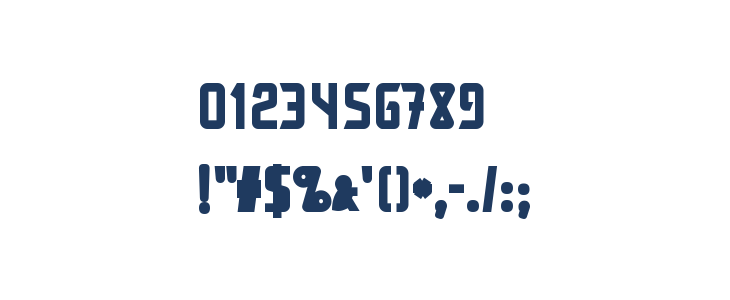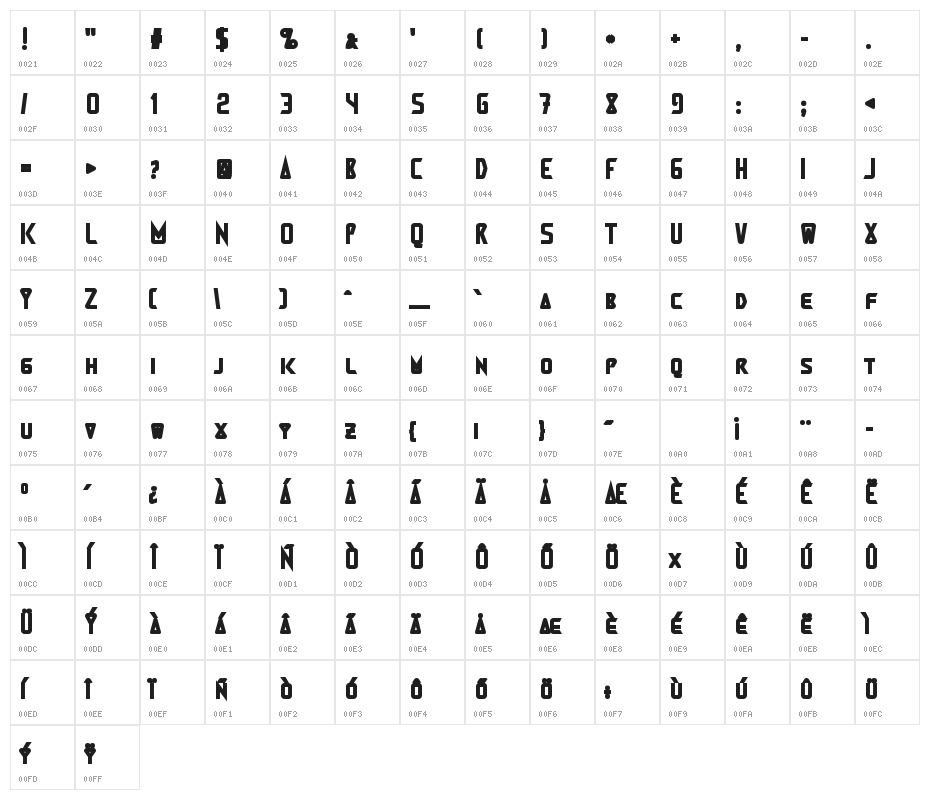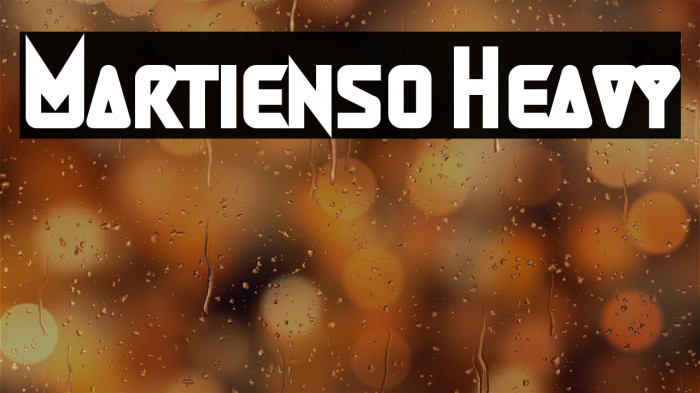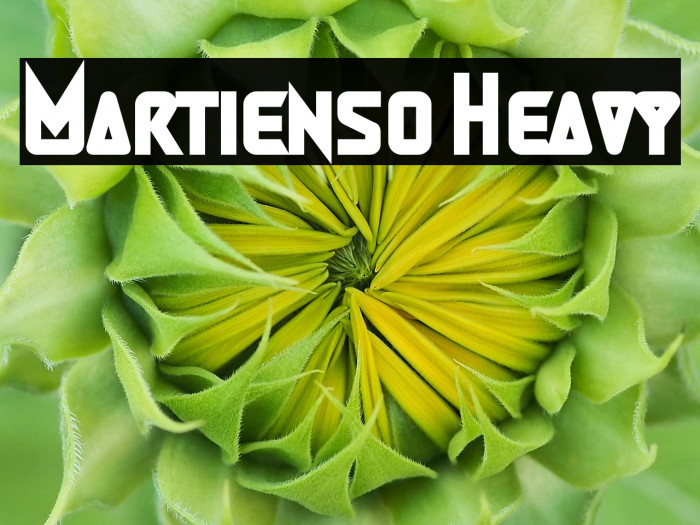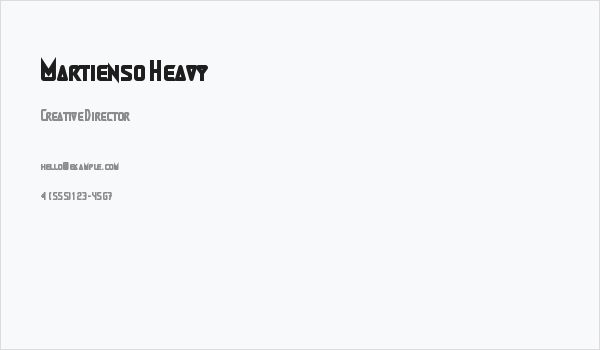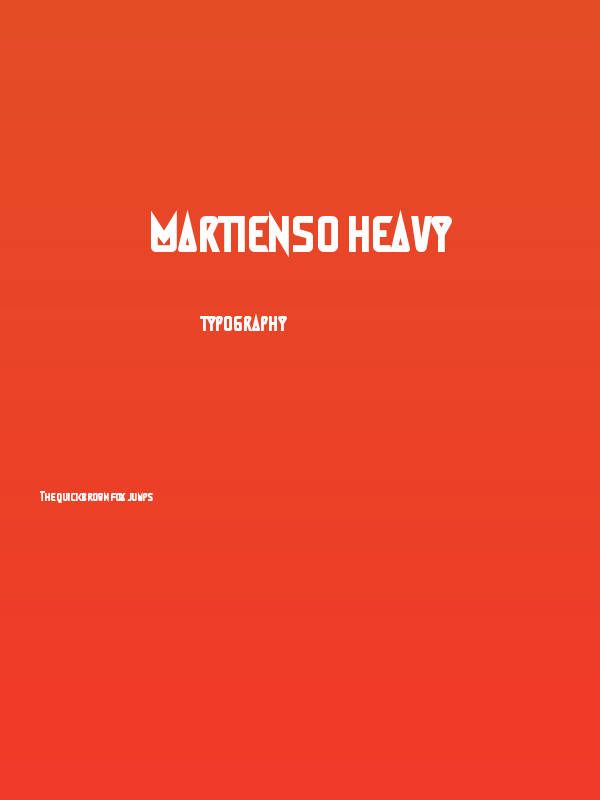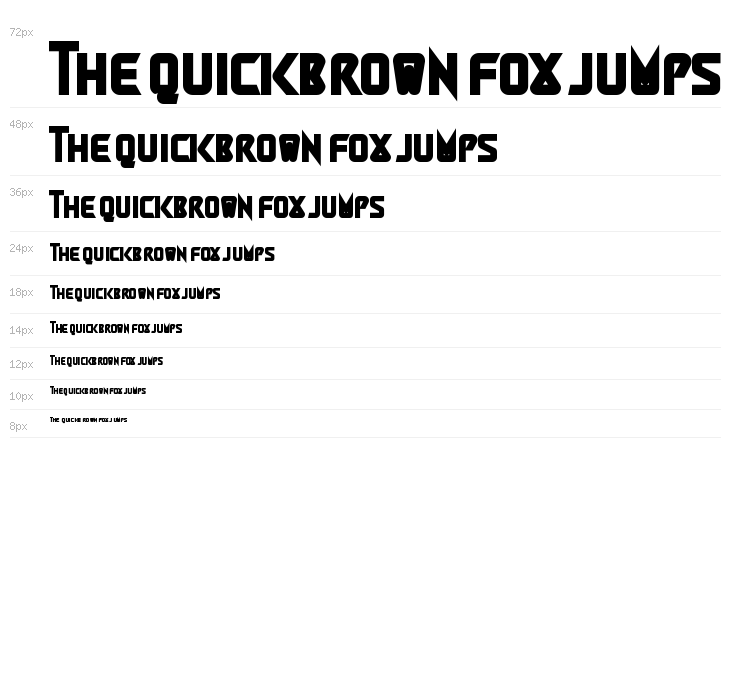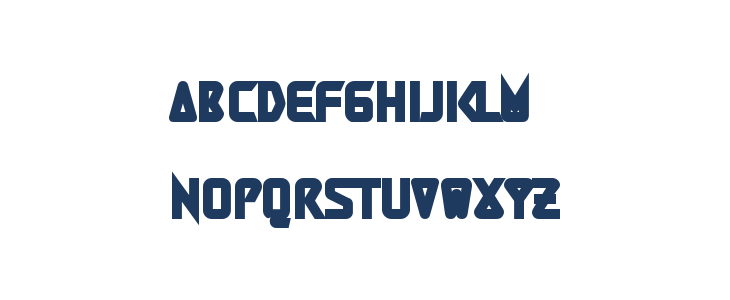
Martienso Heavy Font
Martienso Heavy Description
This font exhibits a bold and geometric style with sharp angles and a futuristic appearance. The characters are designed with a heavy weight, giving them a strong presence. The uppercase and lowercase letters share a consistent design language, with unique cutouts and angular forms that create a dynamic and edgy look. The numerals and special characters follow the same design principles, ensuring uniformity across all glyphs. This font is ideal for projects that require a modern and impactful aesthetic.
| Proposed Projects | Perfect for sci-fi themed designs, video game titles, posters, and branding that requires a modern and bold statement. |